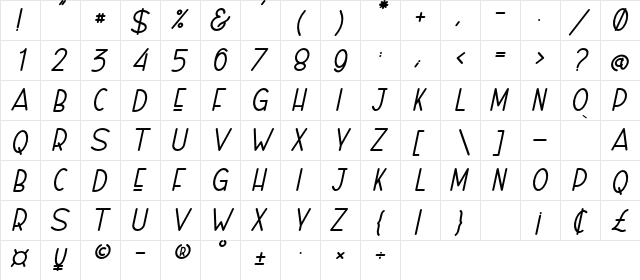
Naura Slant_DEMO
Design Context for Naura Typeface
Naura is a composed and adaptable typeface that performs quietly and consistently across a wide range of design contexts.
Pro Tip: Pair Naura with a font of contrasting weight or personality to build a more expressive typographic hierarchy.